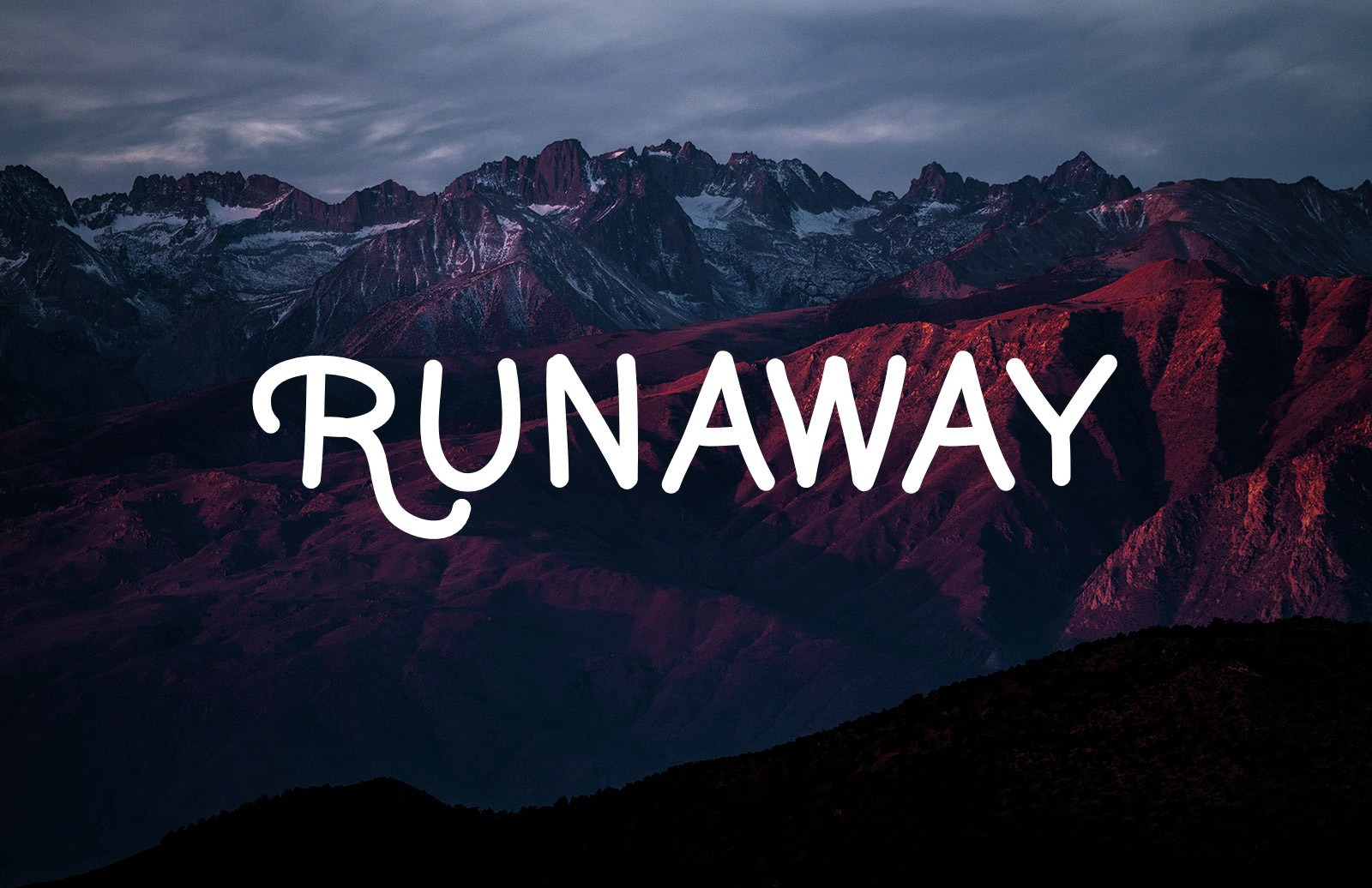
Runaway - Handwritten Font
Runaway is a hand-drawn, retro style, sans-serif font. It's perfect for your next lettering piece or Instagram post. Hipsters will love this font. It is a clean and simple all uppercase font with alternate decorative capital letters.
Use Runaway in headings and titles that need a a hand-drawn touch. Some use cases include blog posts, flyers, postcards, and social posts.
Included in this font is all uppercase A-Z letters, lowercase letters, as well as numbers and commonly used symbols. Please note that the uppercase letters are very similar to the lowercase versions. Most uppercase letters have a little more flair. Use the font previewer below to check it out.